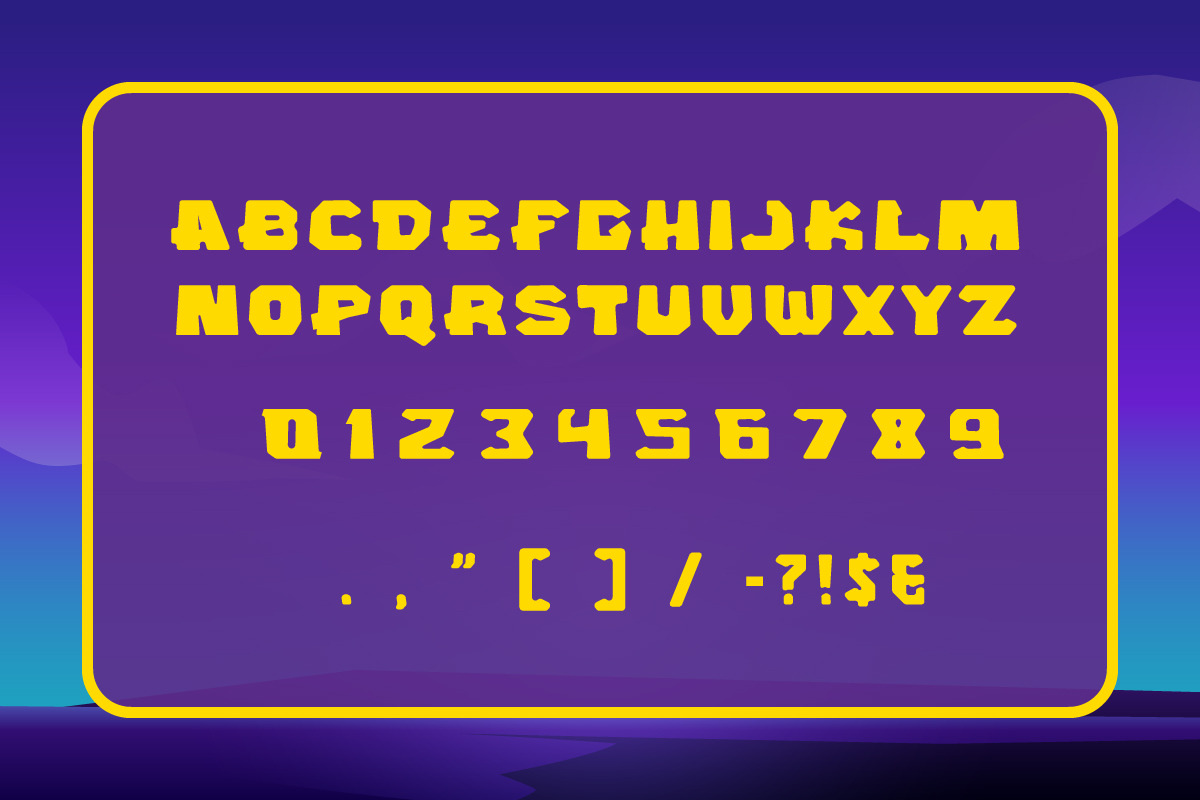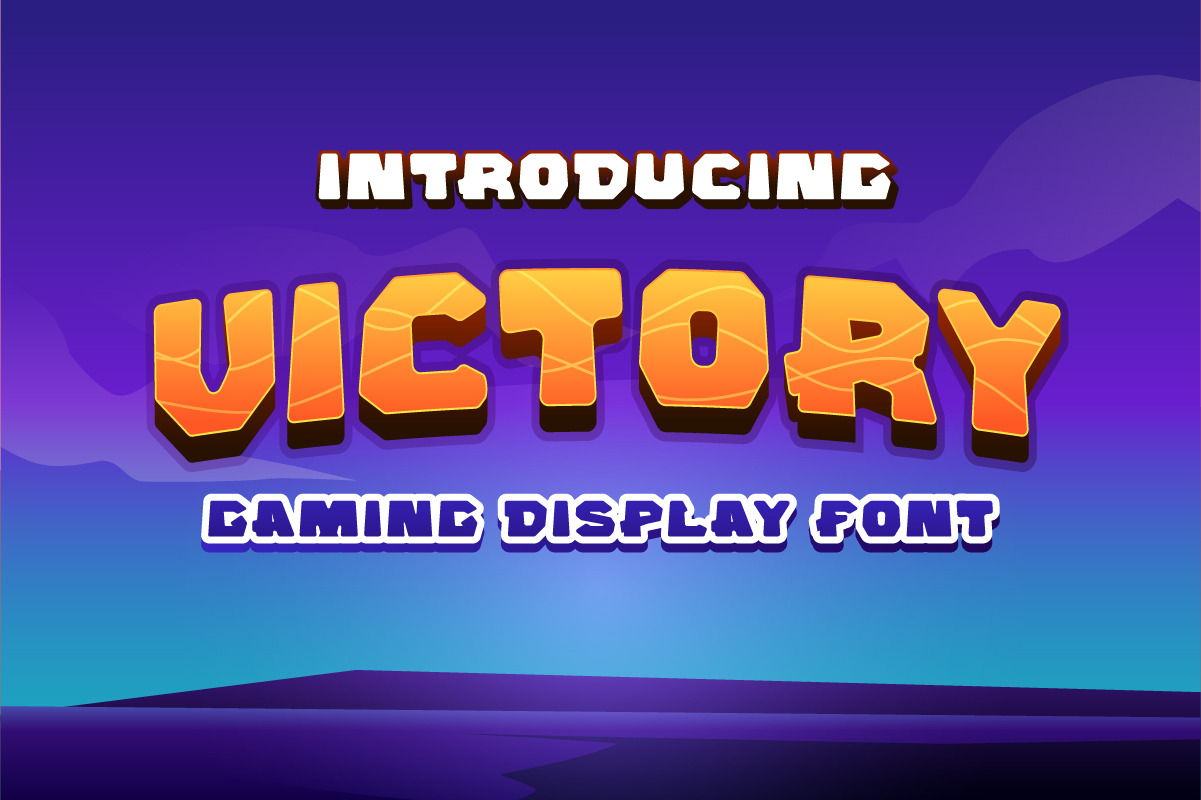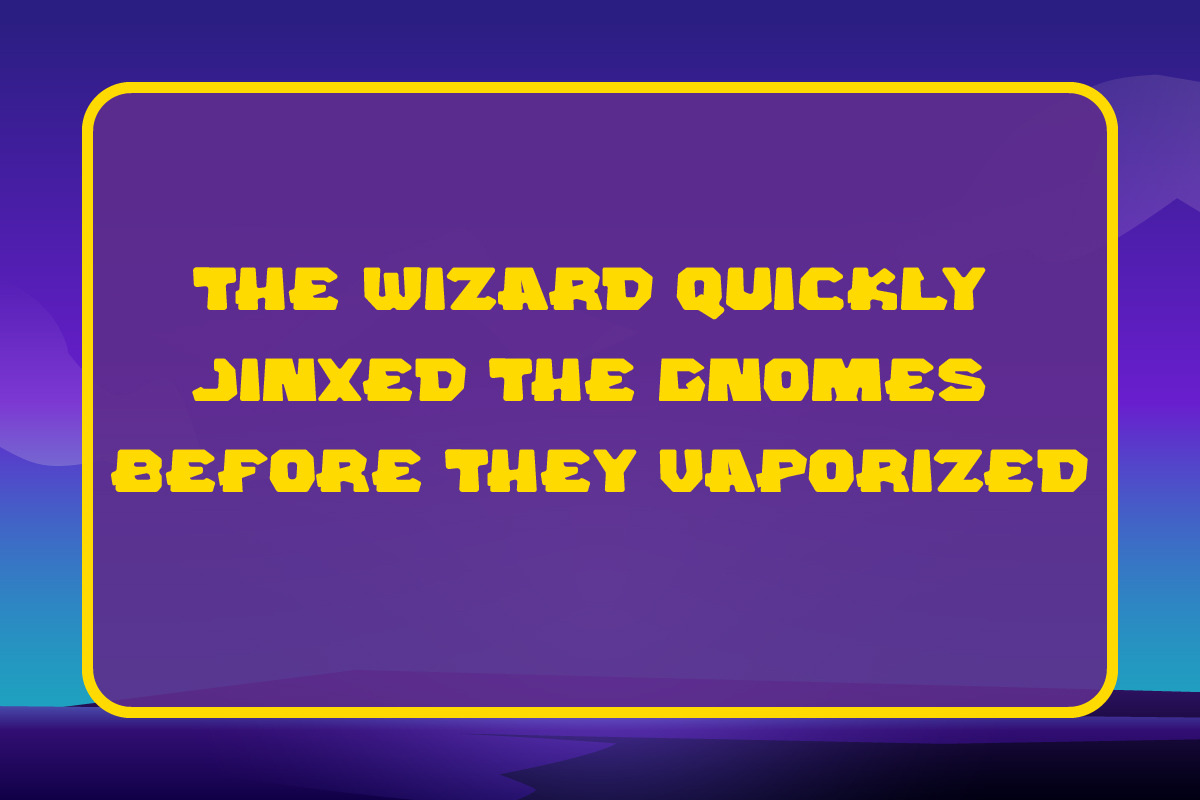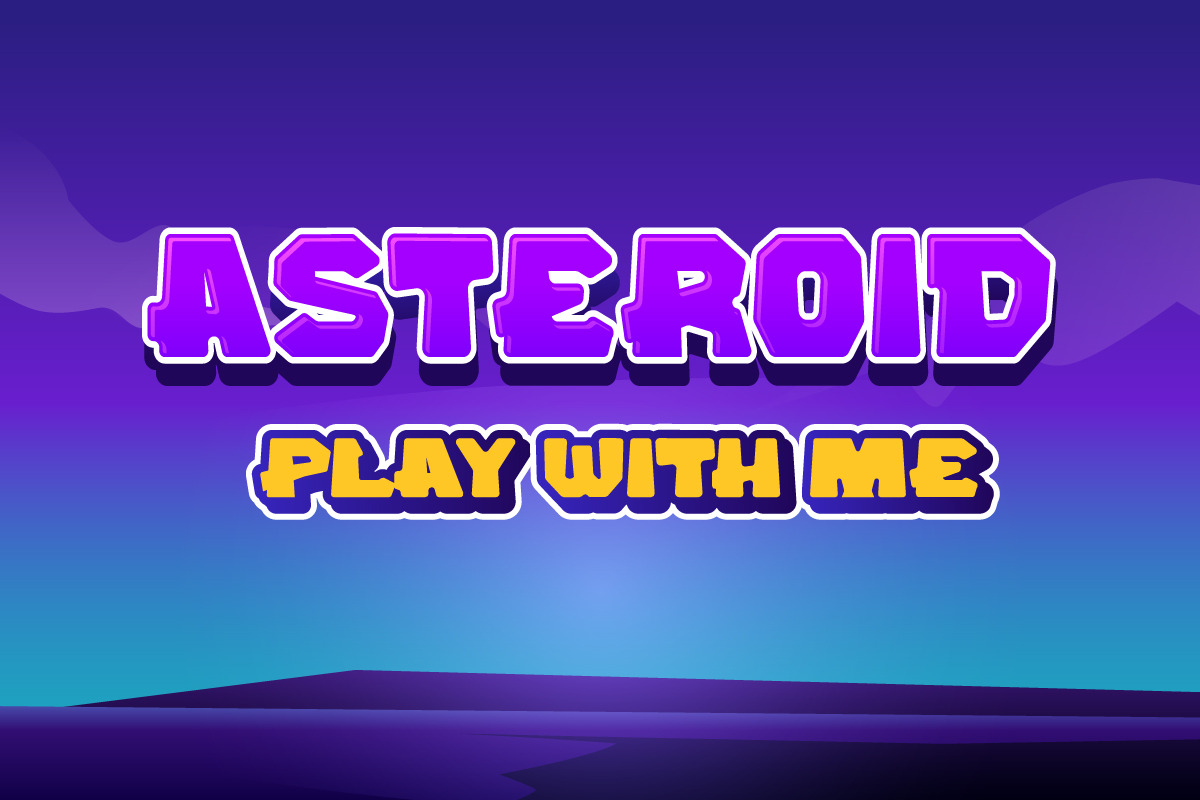
Victory Gaming Display Font
VICTORY font is our new item that suitable for your Gaming logo or community logo.
Great for Logo, Sticker, Jersey, Invitation Card, Brochure, etc.